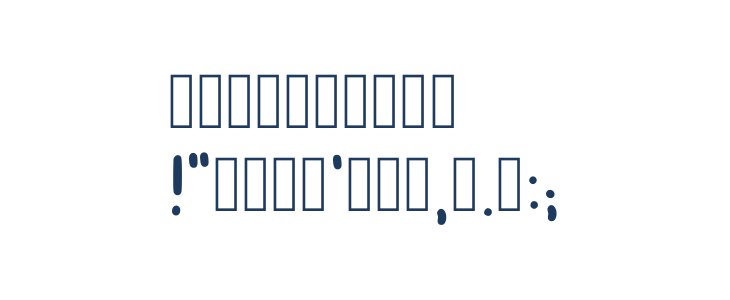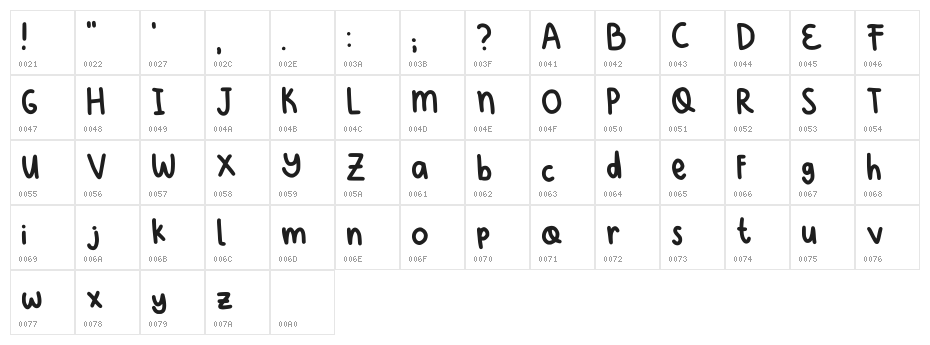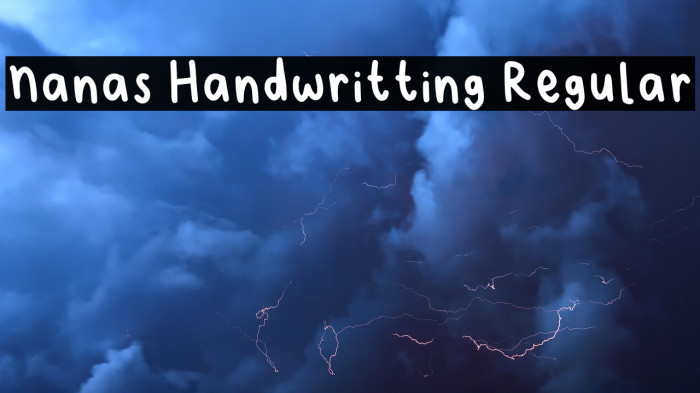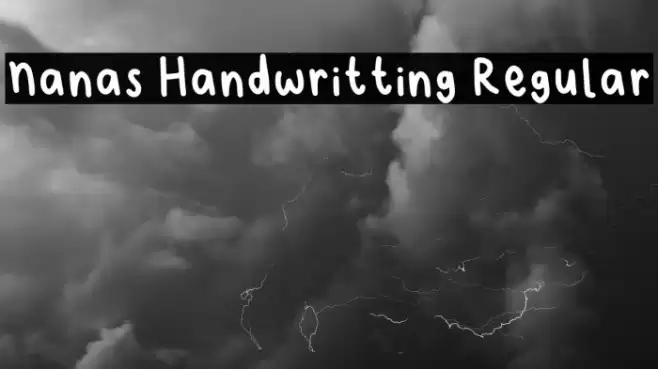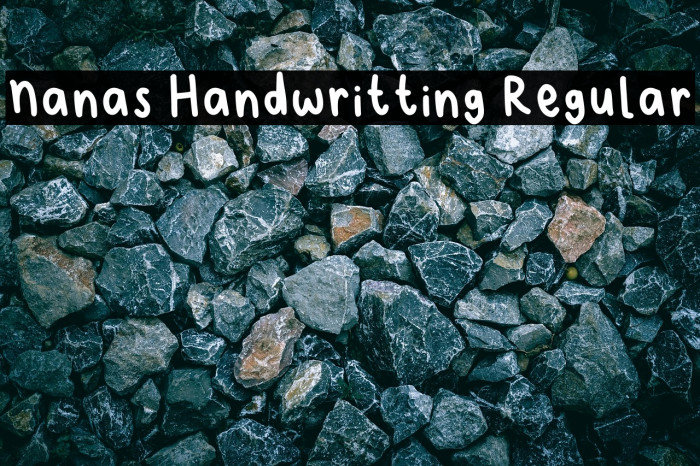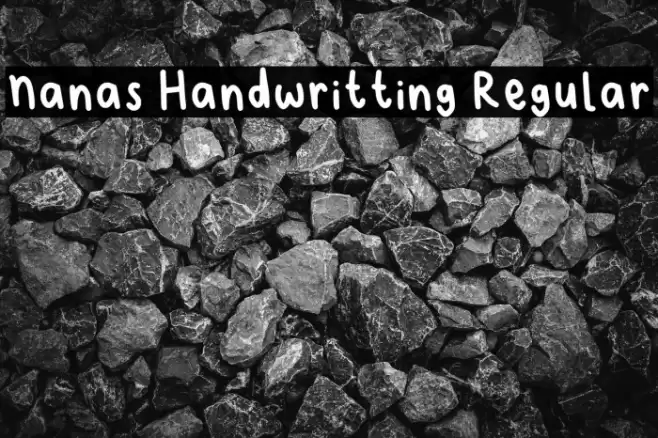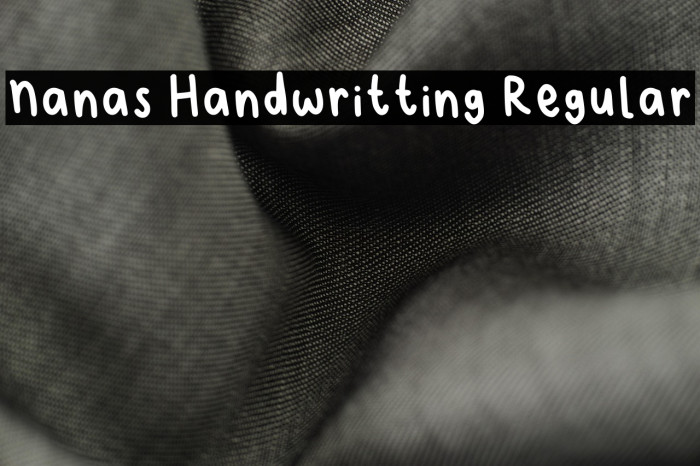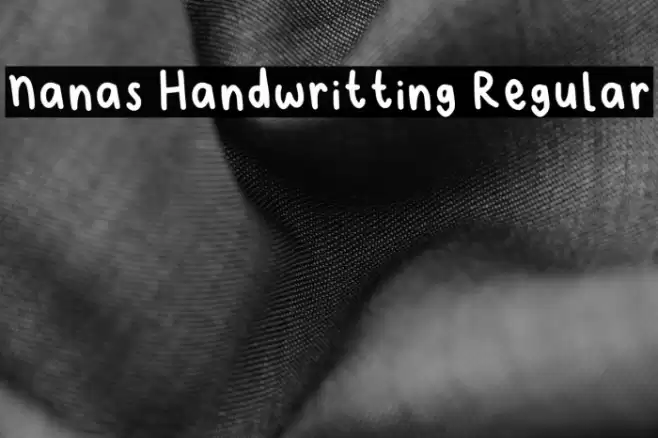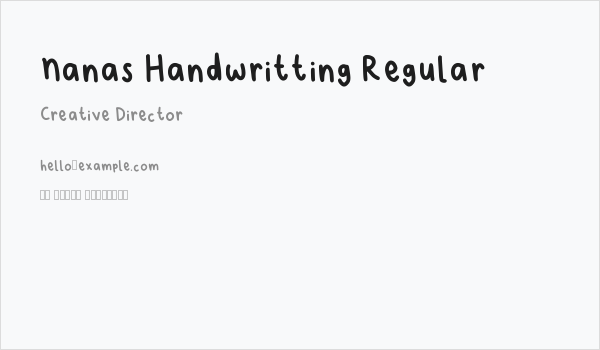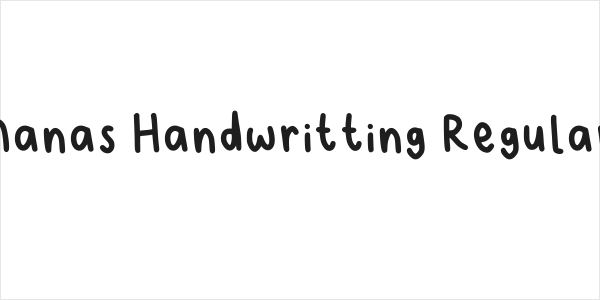
Nanas Handwritting Regular Font
Nanas Handwritting Regular Description
This font exudes a playful and casual handwritten style, characterized by its rounded and slightly irregular letterforms. The strokes are consistent in width, giving it a uniform appearance while maintaining a personal touch. The uppercase and lowercase letters are well-balanced, with a slight tilt that adds to its informal charm. The numerals and special characters follow the same aesthetic, ensuring cohesiveness across all glyphs. This font is perfect for projects that require a friendly and approachable feel, such as children's books, personal blogs, or informal invitations.
| Proposed Projects | Ideal for children's books, personal blogs, informal invitations, and playful branding. |